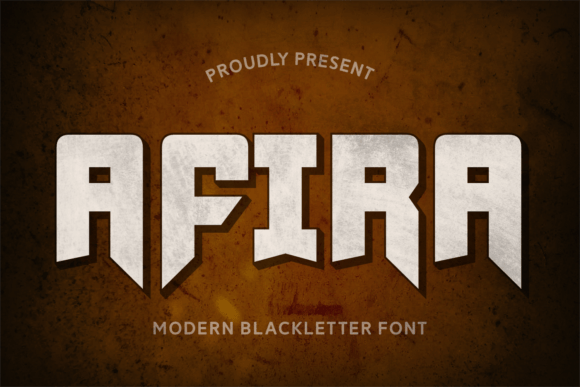
Introducing Afira Font, the ultimate choice for logo typography enthusiasts! Crafted by the talented team at Creative Fabrica Fonts, this remarkable blackletter font combines a thick and modern design, making it a go-to option for those seeking to elevate their designs.
With its bold and stylish characters, Afira Font effortlessly captures attention and leaves a lasting impression. Whether you're working on a logo, a website, or any other creative project, this font guarantees an eye-catching look that will make your brand stand out from the crowd.
What sets Afira Font apart is its versatility. You have the option to choose between the regular and italic versions, allowing you to create captivating typography that perfectly embodies your brand's personality. This font adapts effortlessly to any topic or theme, making it suitable for a wide range of projects.
One of the standout features of Afira Font is its ease of use. It is PUA encoded, granting you seamless access to all the glyphs. This means that you can effortlessly incorporate unique characters and symbols into your designs, adding that extra touch of creativity and personalization.
When it comes to marketing your products or services, first impressions matter. Afira Font ensures that your typography leaves a lasting impact on your audience. Its powerful and expressive design evokes emotions and captures attention, allowing you to effectively communicate your brand's message.
Whether you're a graphic designer, a branding agency, or a small business owner, Afira Font is a must-have in your font collection. Its captivating aesthetic and extensive range of applications make it a valuable asset for all your design projects.
In conclusion, Afira Font is the perfect choice for those seeking the best fonts for logo typography. Its bold and modern blackletter design, along with its versatility and ease of use, sets it apart from the rest. Elevate your designs and captivate your audience with Afira Font - the ultimate tool for creating remarkable and eye-catching typography.